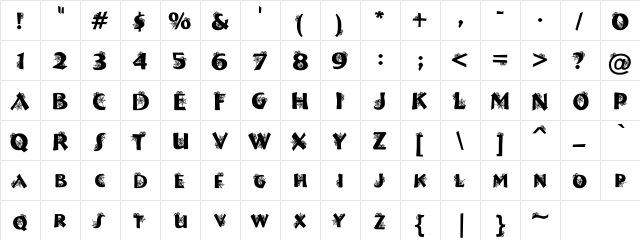
DJ Web Regular
Design Context for DJ Web Typeface
DJ Web is a composed and adaptable typeface that performs quietly and consistently across a wide range of design contexts.